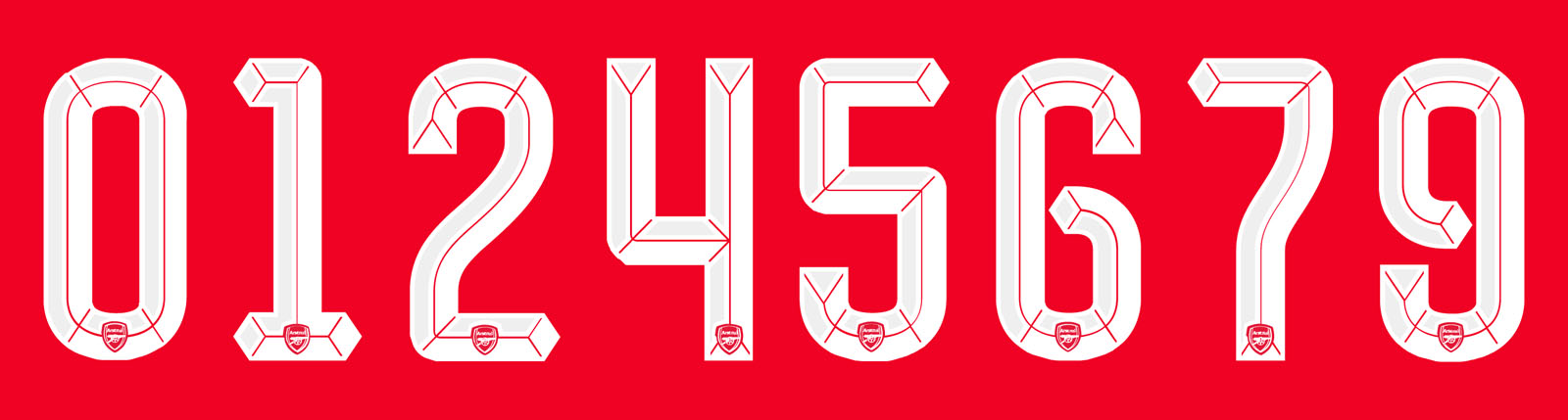
Arsenal 15-16 Kit Font Revealed
Released two days ago, the new Arsenal 15-16 Home Kit boasts a class look, combining Arsenal's iconic red shirt and white sleeves with golden accents. Additional to the new Arsenal kit style, the typeface used for player names and numbers on the new Arsenal kits outside the Premier League has also been revamped.
Arsenal 15-16 Kit Font
This is the new style for player names and numbers on the Arsenal 15-16 Kits for Mesut Özil, Alexis Sánchez and Santi Cazorla.
The new Arsenal 15-16 shirt typeface features a new style, inspired by the new A logo visible on the upper back of all three Arsenal 15-16 Kits. The white Arsenal 15-16 numbers feature a subtle 3D effect and cutout lines inside them.
Placed inside the new Arsenal 15-16 kit numbers is the Arsenal crest, while the typeface used for player names also follows the new style.
While Arsenal will don the stunning new Arsenal 15-16 font in Champions League and FA Cup matches, for the 2015-16 Premier League, Arsenal will continue with the default league lettering, last updated in 2007.